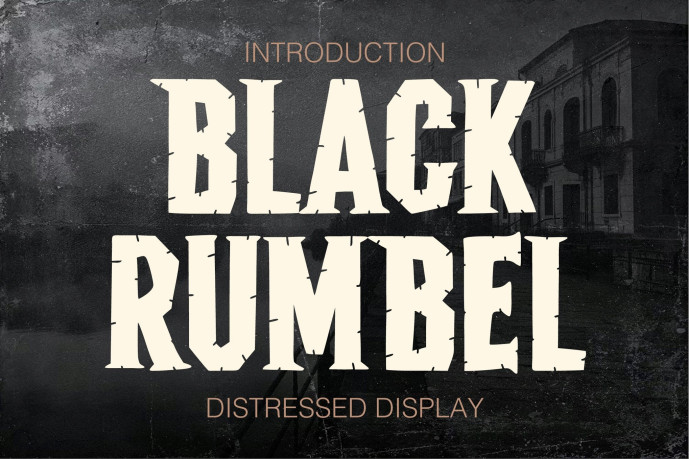
Black Rumbel – Distressed Display Font
Designer: Elevra
Black Rumbel – Distressed Display Font is a bold distressed display typeface inspired by vintage horror posters, old western signage, and rough handcrafted lettering. Its strong shapes combined with worn, cracked textures create a powerful and gritty visual presence. This font is designed to stand out, making it perfect for headlines, posters, branding, album covers, movie titles, and designs that demand a dark, dramatic, and rebellious character.
Black Rumbel brings an authentic rugged feel while maintaining clear readability, making it ideal for both modern and retro-themed projects. Whether you’re creating horror visuals, grunge branding, or bold statement typography, this font delivers a striking and unforgettable impact.